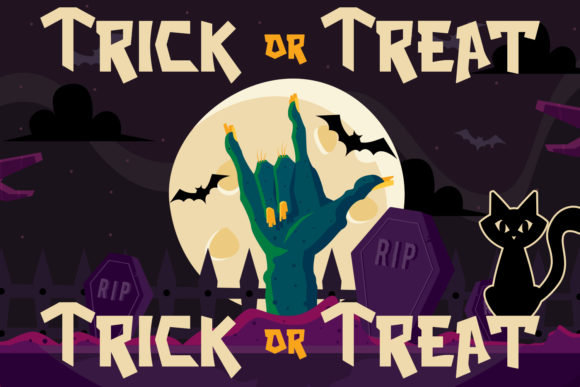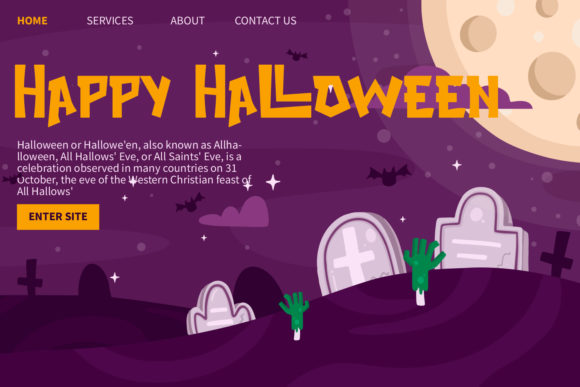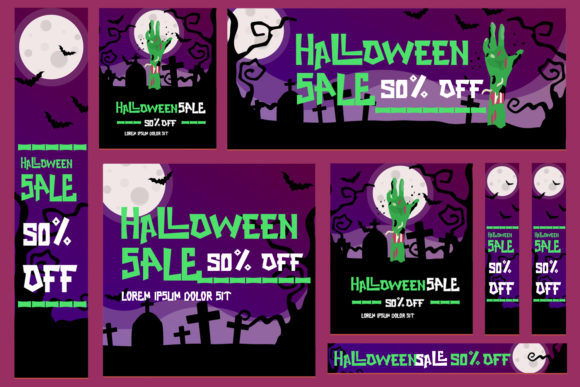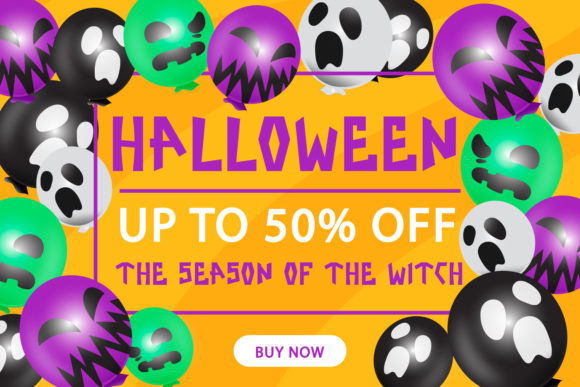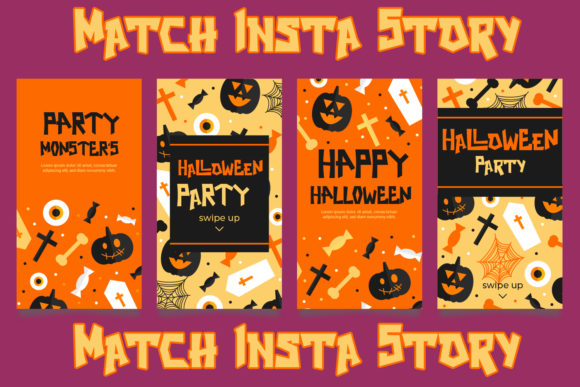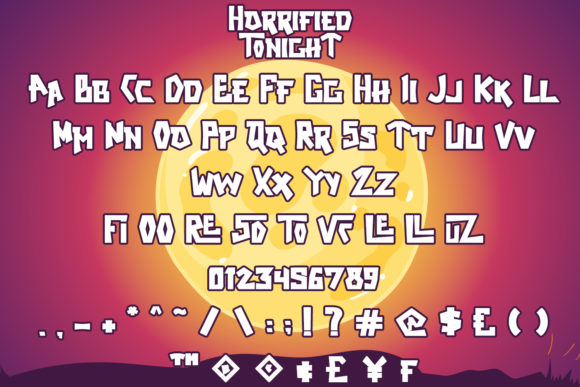
Introduction to Horrified Tonight Font
Horrified Tonight is a cute & friendly decorative font perfect for your Halloween designs.
Add this chunky lettered font to your designs and notice how it makes them come alive .